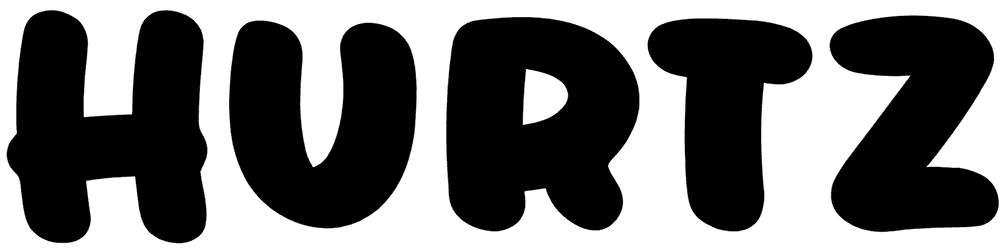
Hurtz Font
Hurtz is a type of balloon font that was developed for display purposes and works very well in advertising. This cartoon font can take your projects out of the ordinary and give them a customized look. You can arrange th…
Hurtz is a type of balloon font that was developed for display purposes and works very well in advertising. This cartoon font can take your projects out of the ordinary and give them a customized look.
You can arrange the balloons of this font based on any topic, such as events, entertainment, animations, and computer games. So don’t worry about the lack of small letters in this font, because you are dealing with a versatile font.